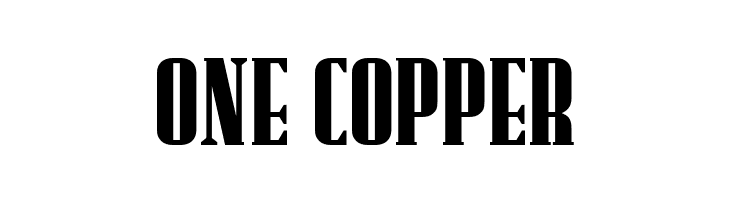
A bold, high-contrast serif font with elongated characters and sharp serifs.
A bold, textured font with a vintage, rugged appearance.
A bold, playful font with irregular, dynamic shapes.
A bold serif font with a modern flair and elegant curves.
A modern, light, and elegant font with a clean design.
An elegant italic serif font with smooth, flowing lines and subtle serifs.
A classic serif font with balanced strokes and elegant proportions.
A classic serif font with medium weight and elegant flared serifs.
A bold, geometric font with a three-dimensional outlined style.
A classic, high-contrast serif font with elegant, narrow characters.
A high-contrast, elegant font with elongated serifs and a modern aesthetic.
A bold, modern font with clean lines and a professional appearance.
A bold, condensed typeface with a modern, impactful style.
A bold, condensed font with a modern and impactful style.
A bold and impactful typeface with thick, uniform strokes for strong visual presence.
Bold and heavy typeface with strong, modern strokes.
A modern, bold typeface with clean lines and geometric influences.
A bold, condensed font with high contrast and a modern, structured style.
A bold, condensed font with strong vertical emphasis and minimal stroke contrast.
A bold, industrial-style font with strong, clean lines.
A tall, narrow font with a modern and clean design.
A classic serif font with elegant strokes and sharp serifs.
A bold, shaded font with a classic and decorative style.
A classic serif font with a compressed, elegant style and medium contrast.